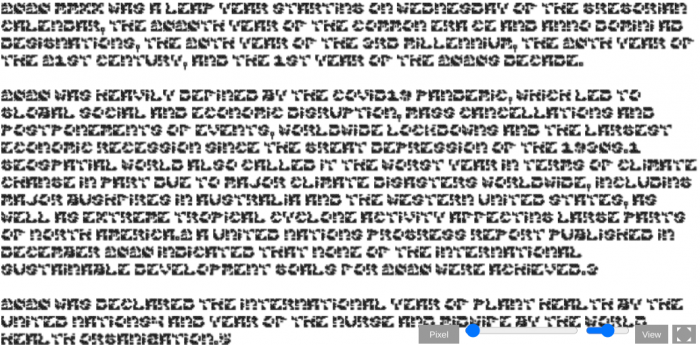
For the Twenties contest. This font is supposed to represent all the mayhem that has happened throughout 2020 with the broken and worn down letters and all that.
Congratulations! FontStruct Staff have deemed your FontStruction worthy of special mention. “NX Chaos” is now a Top Pick.
Your font looks like a frozen movement from a film, a screen shot, totally rough, but a cool and spontaneous of the moment, art object.